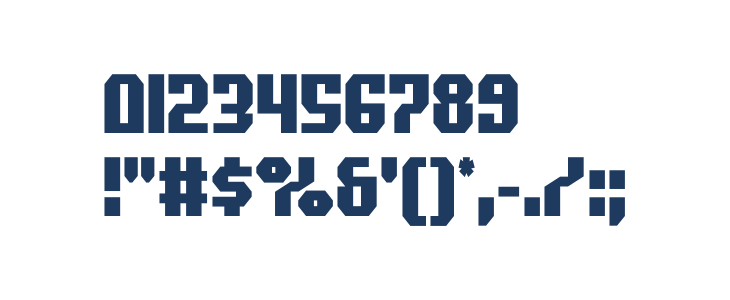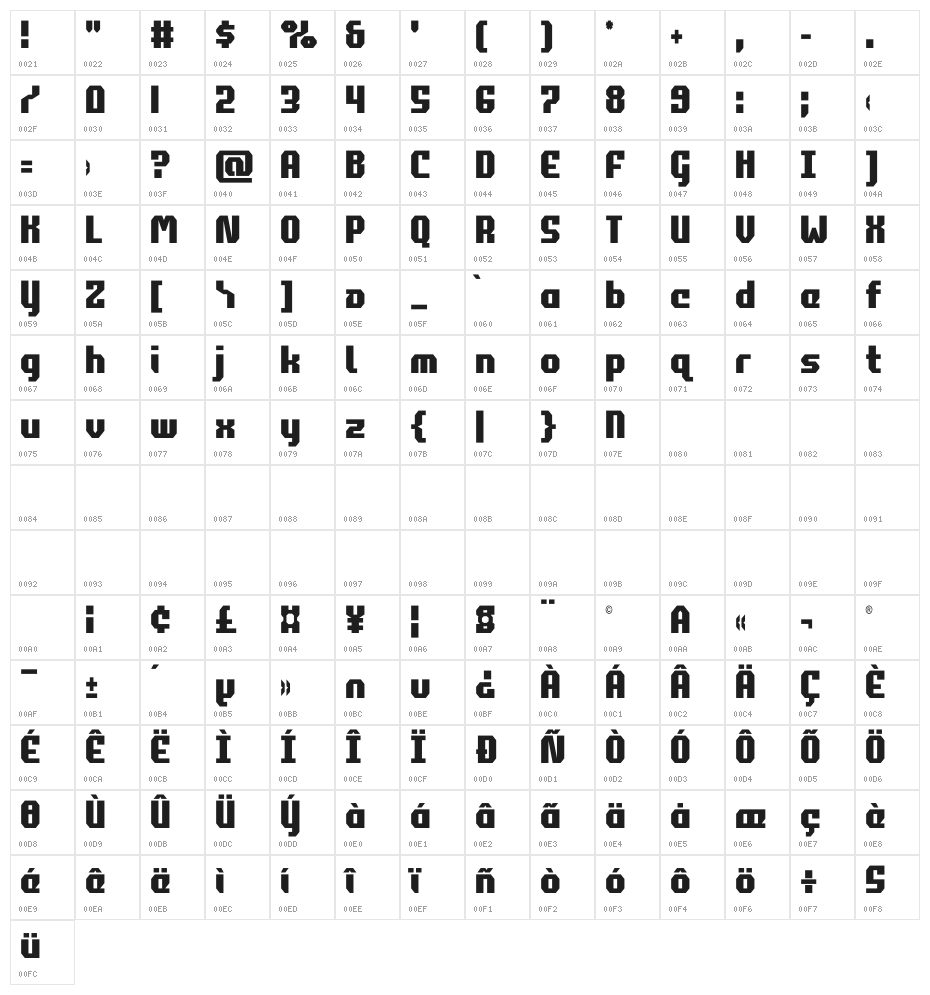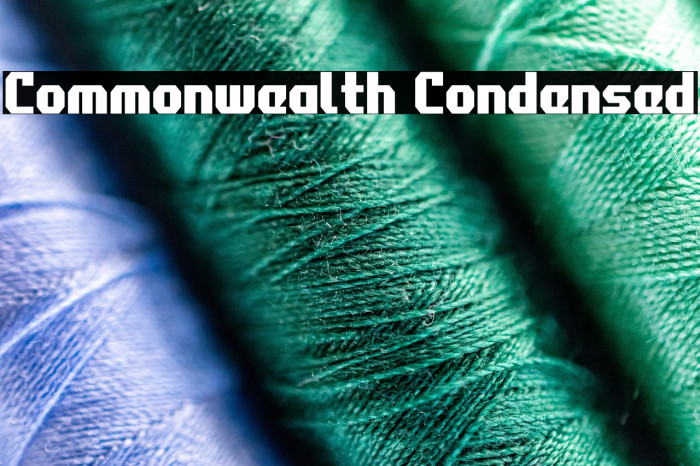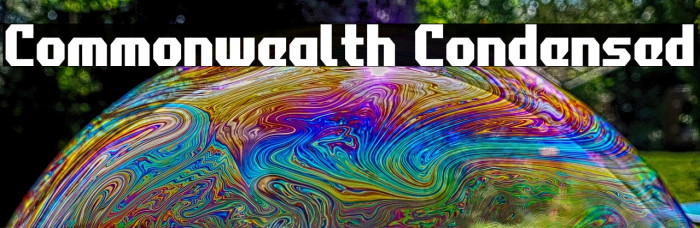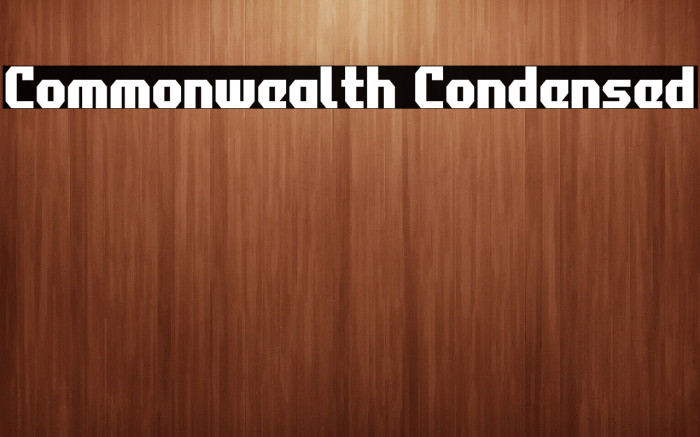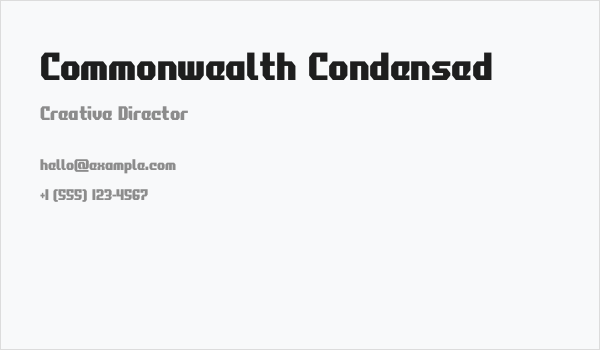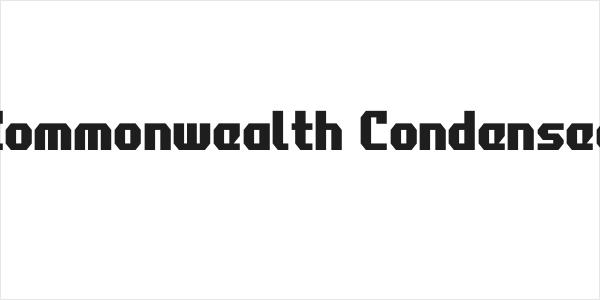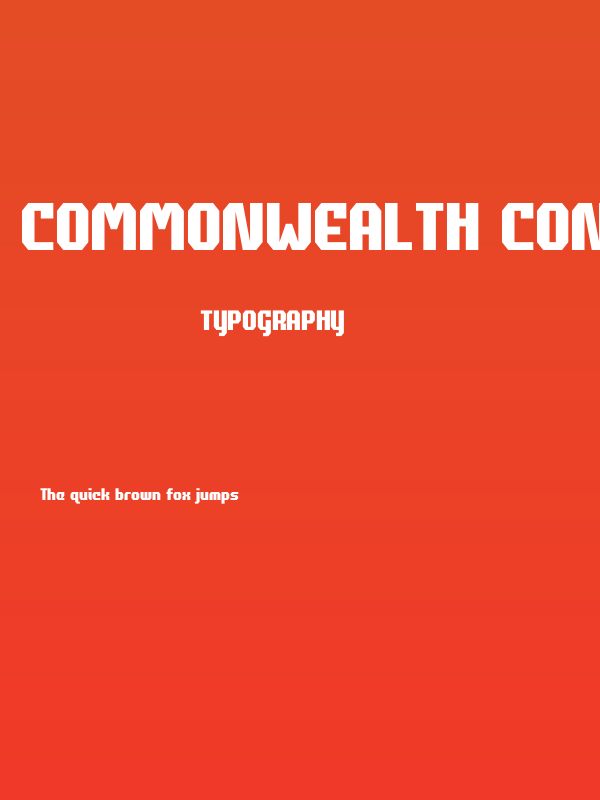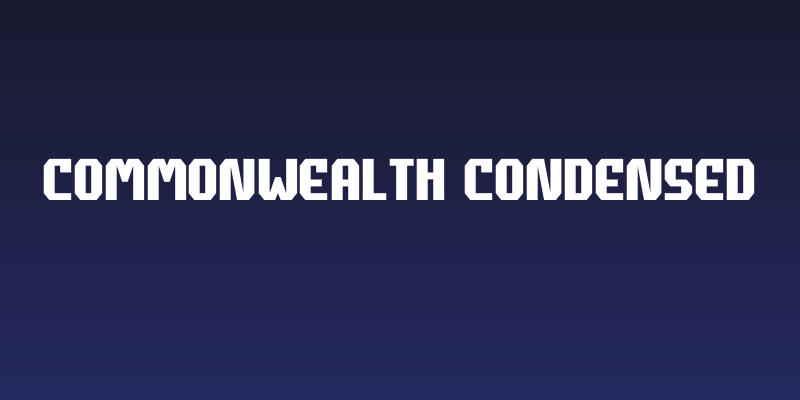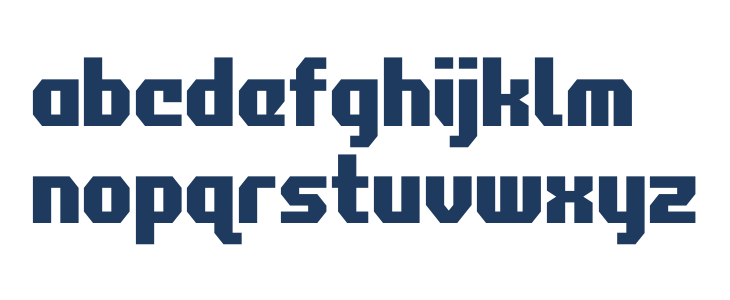
Commonwealth Condensed Font
Commonwealth Condensed Description
This font features a bold and geometric design with a condensed structure, giving it a strong and impactful appearance. The characters are constructed with sharp angles and straight lines, creating a modern and industrial feel. The uppercase and lowercase letters maintain a consistent height, enhancing the uniformity of the typeface. The numerals and special characters follow the same design principles, ensuring a cohesive look across all elements. The overall style is assertive and attention-grabbing, making it suitable for projects that require a bold statement.